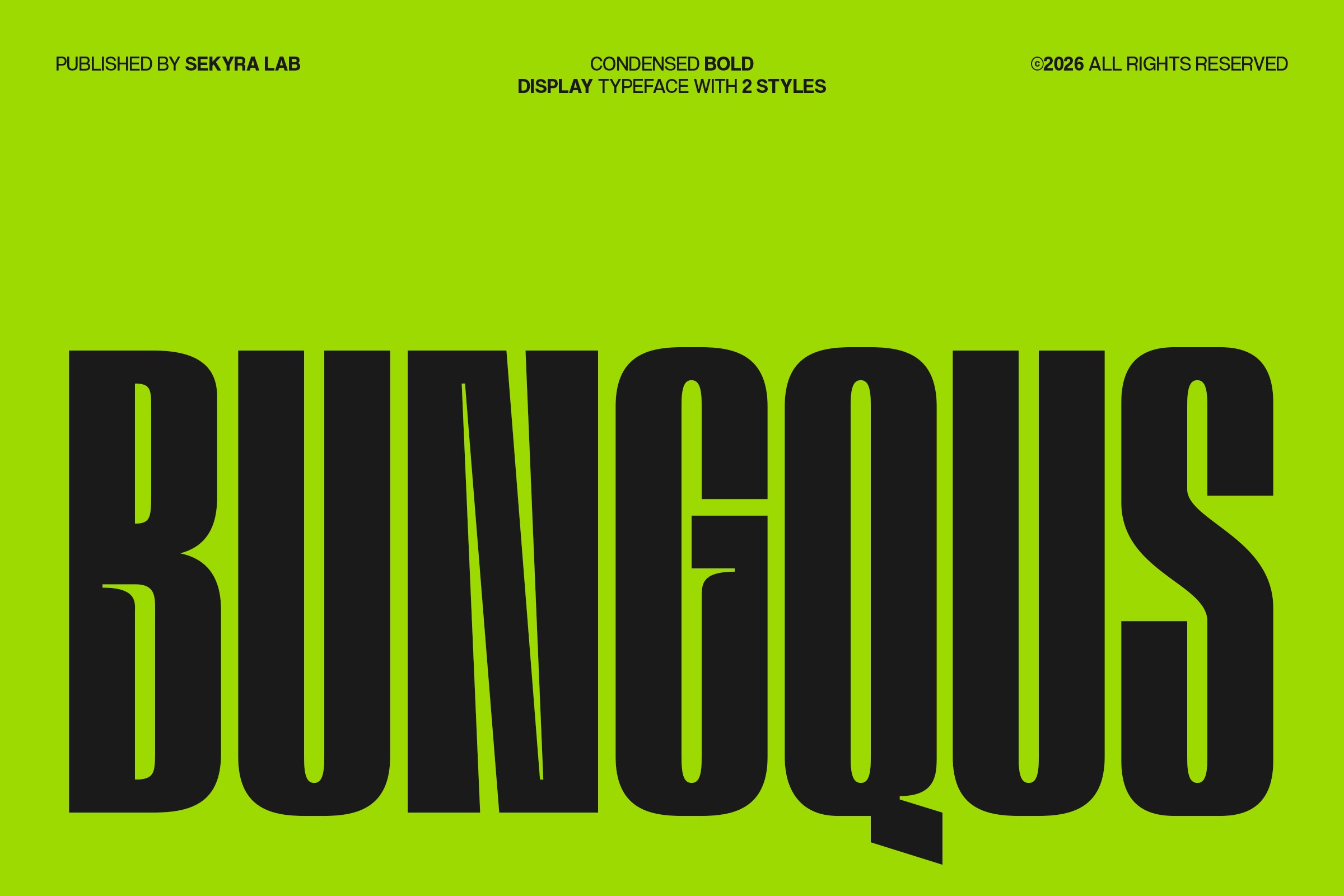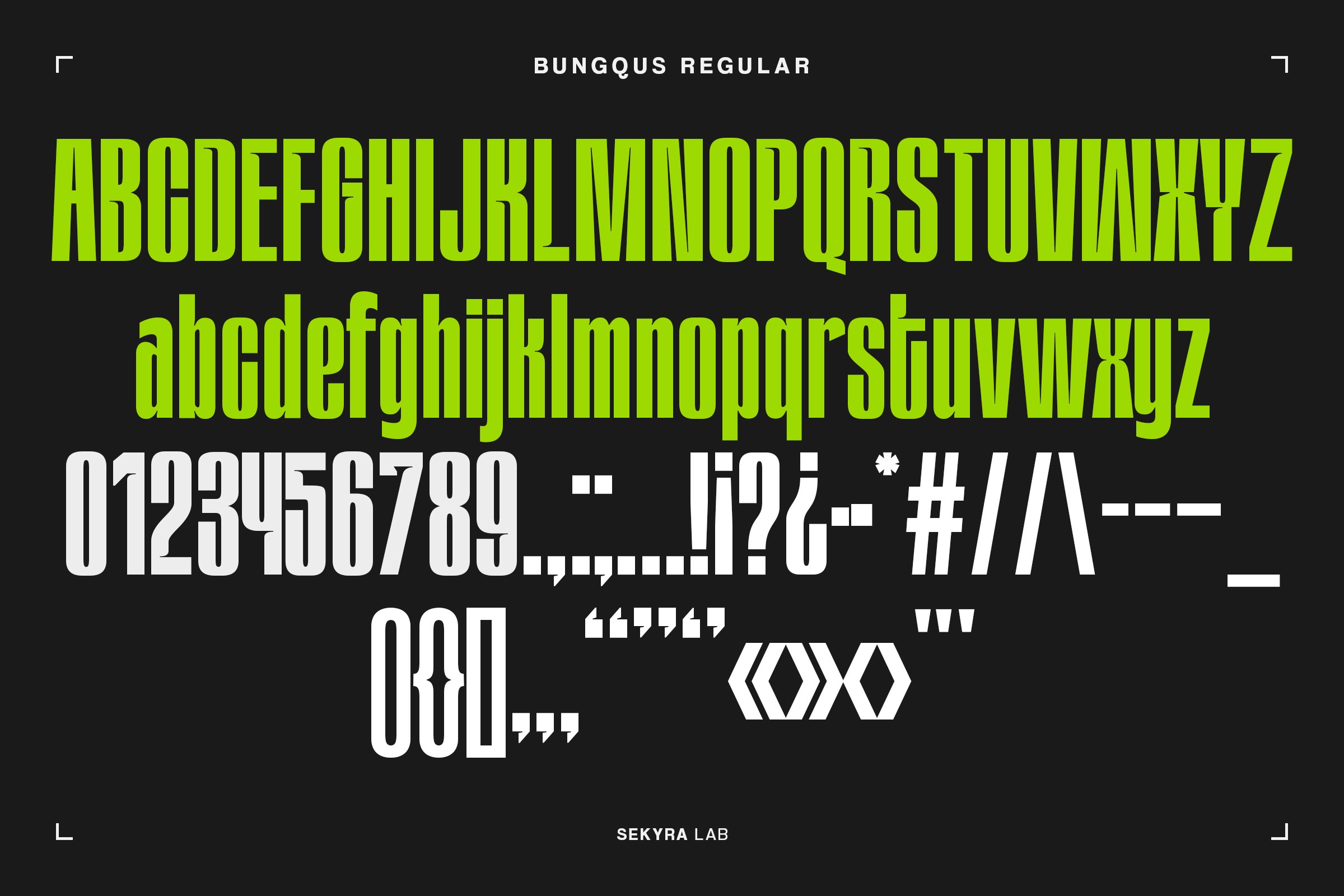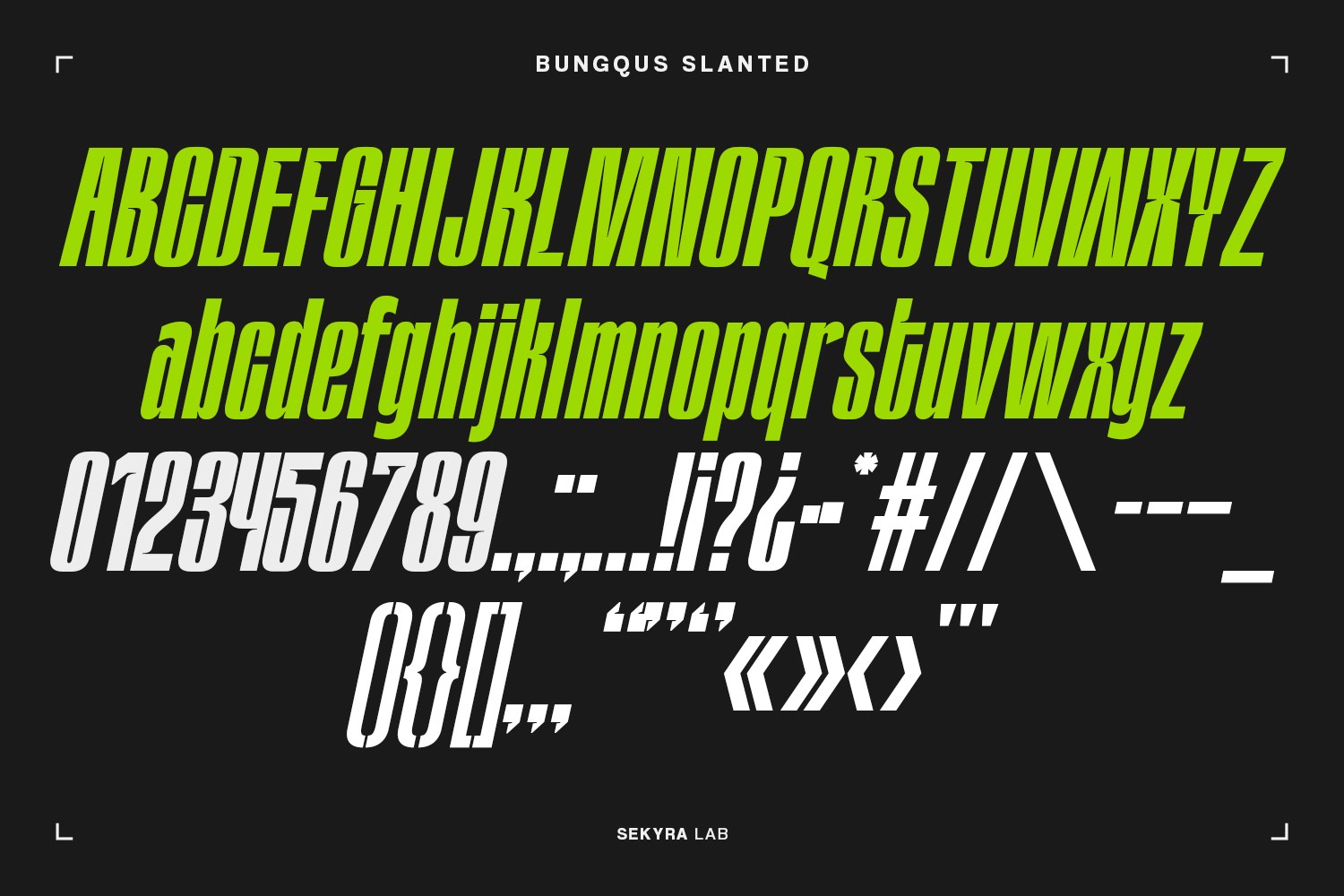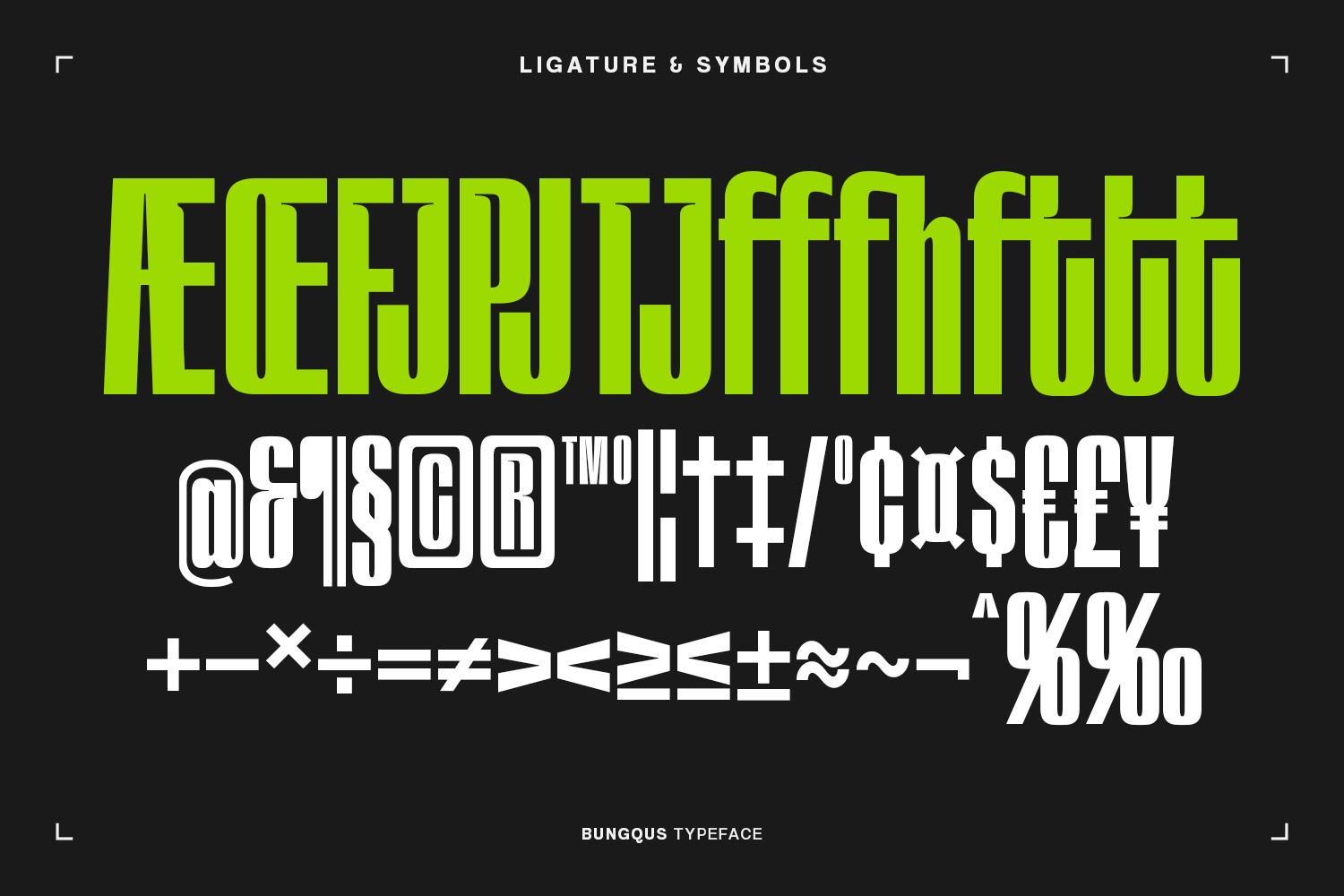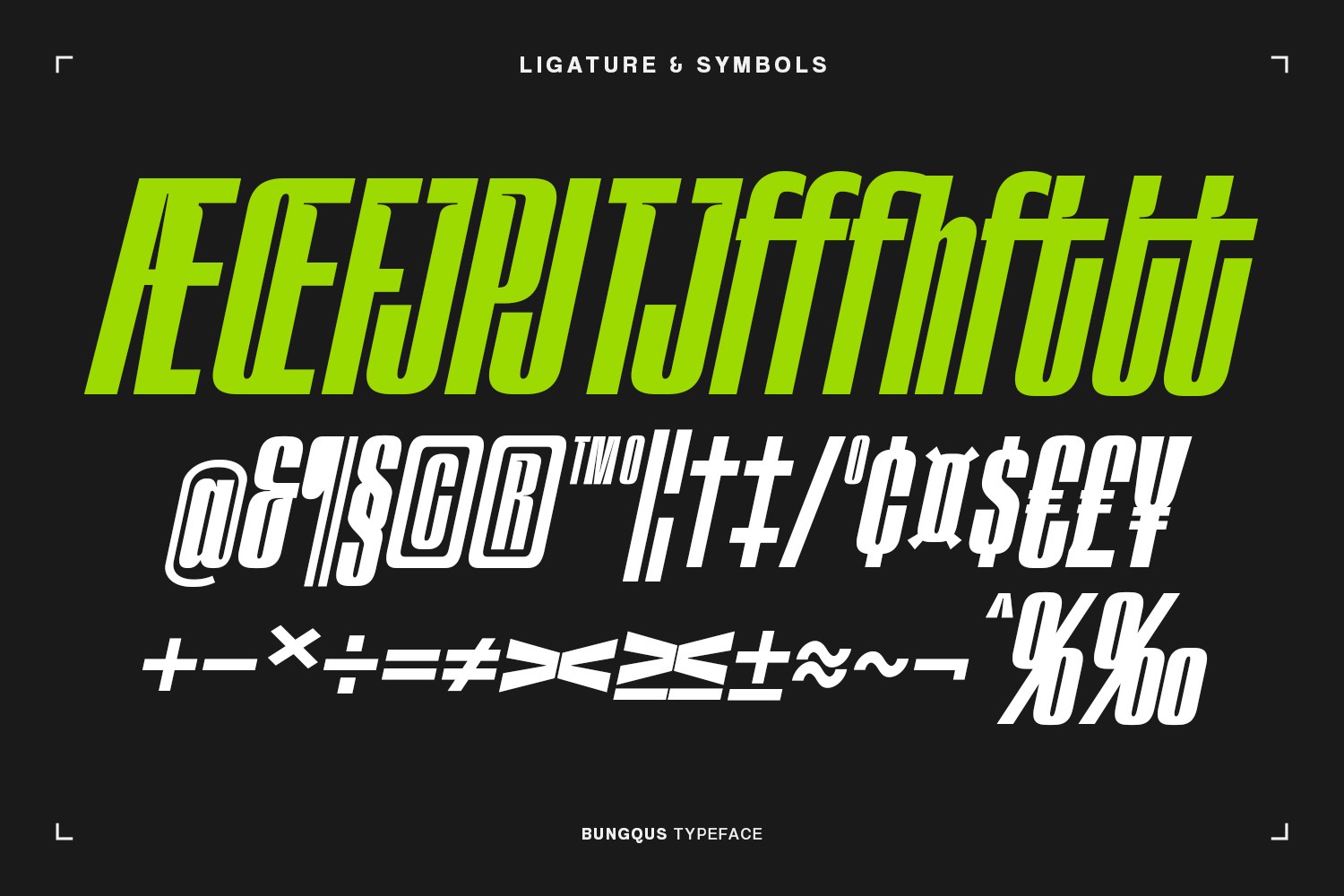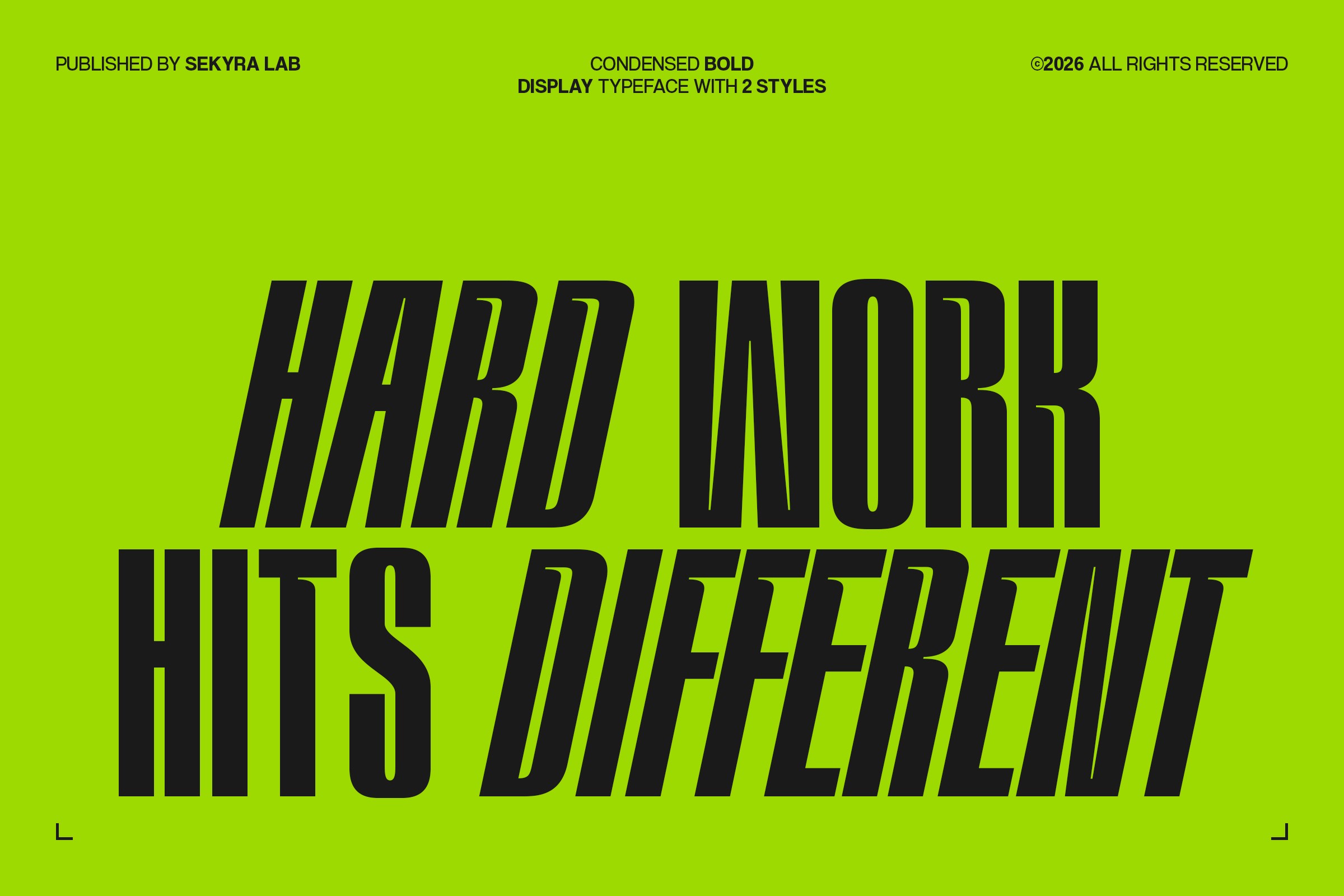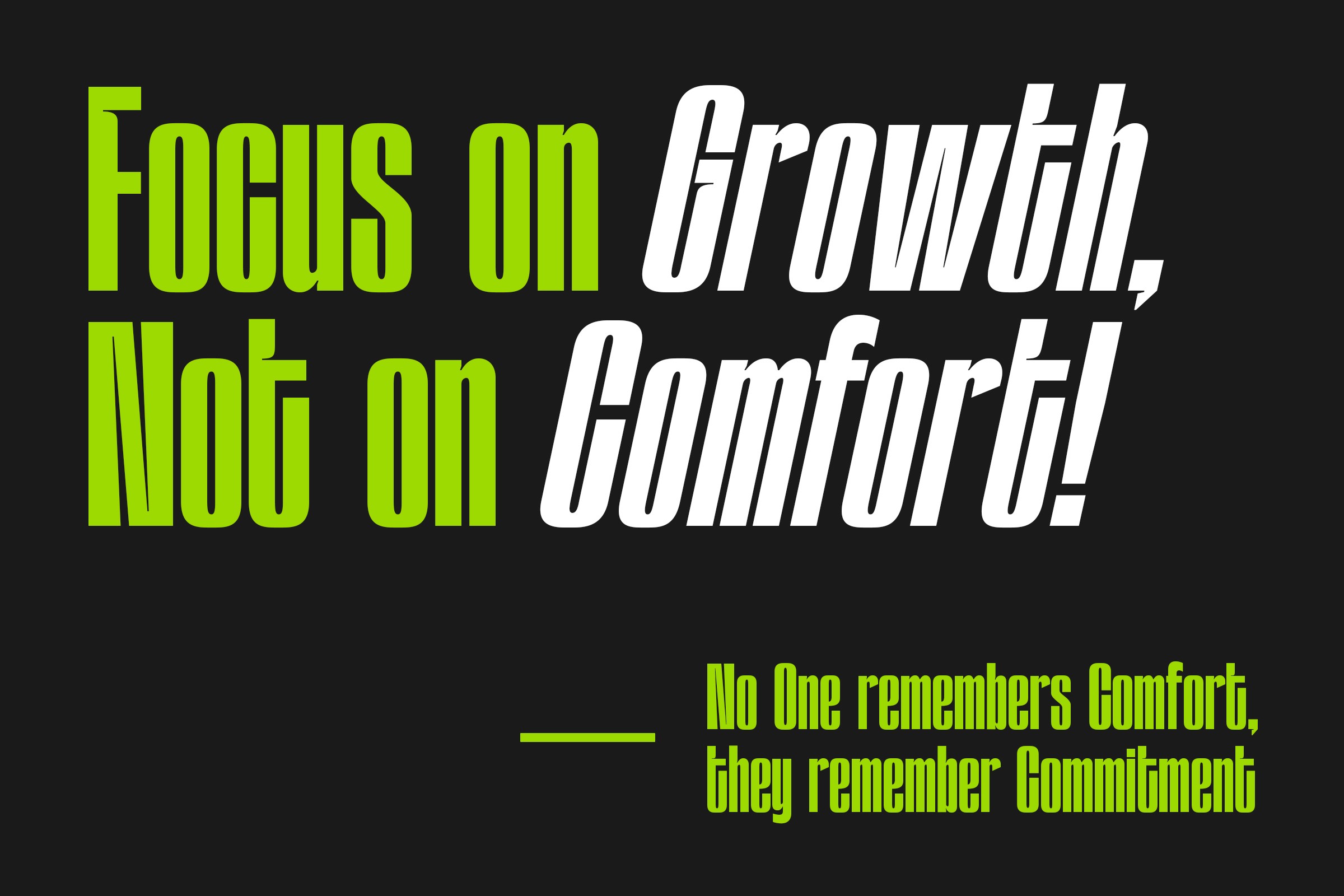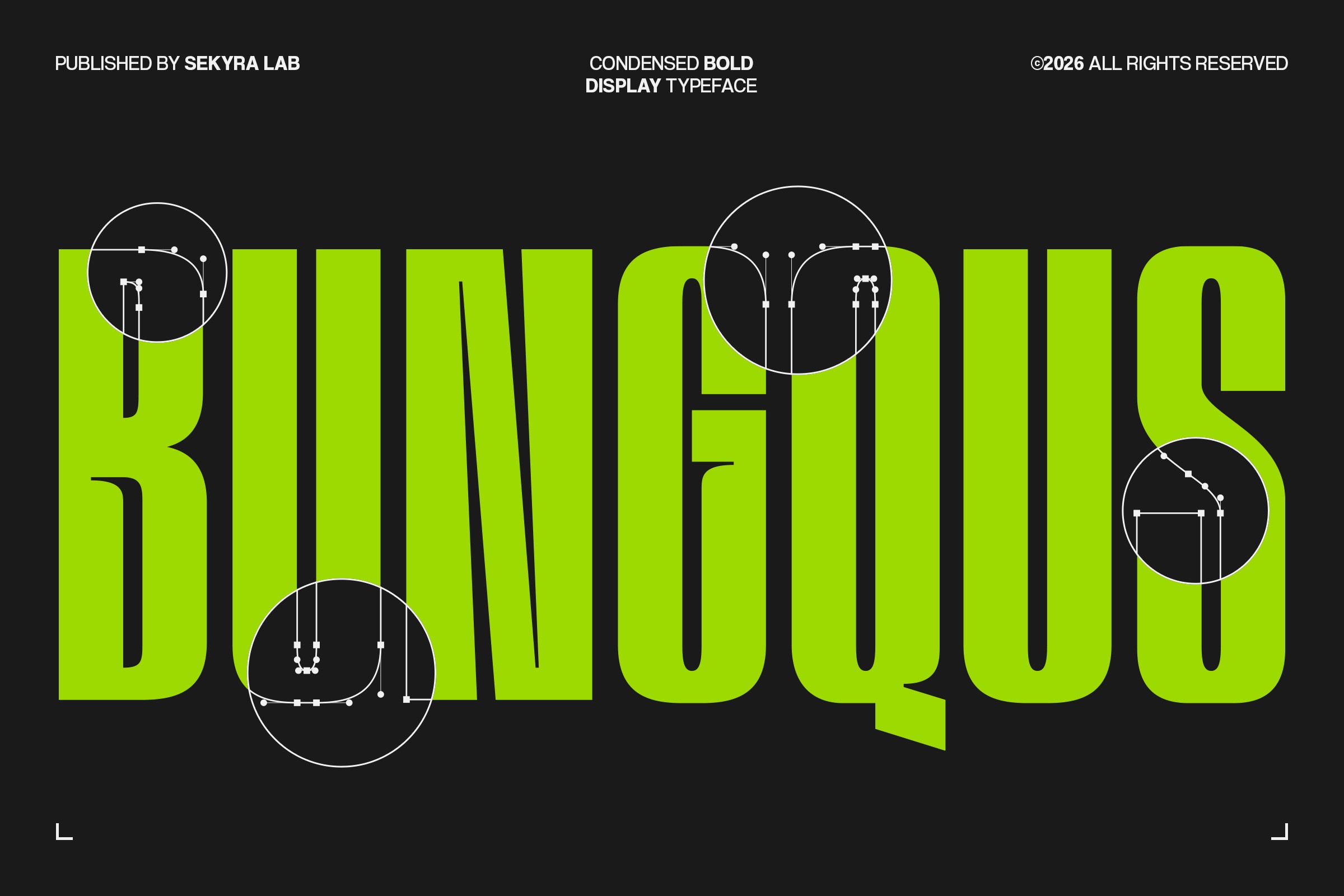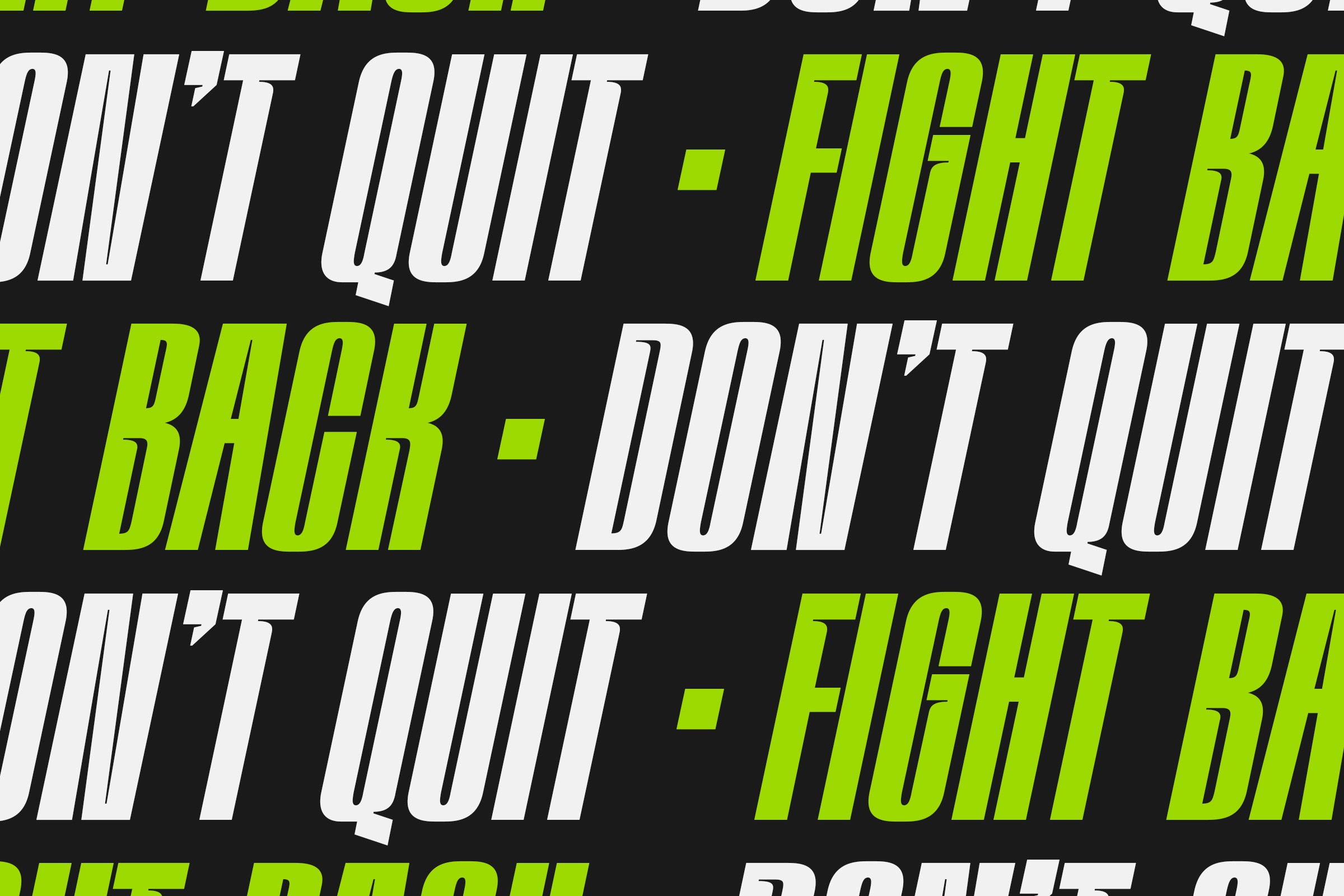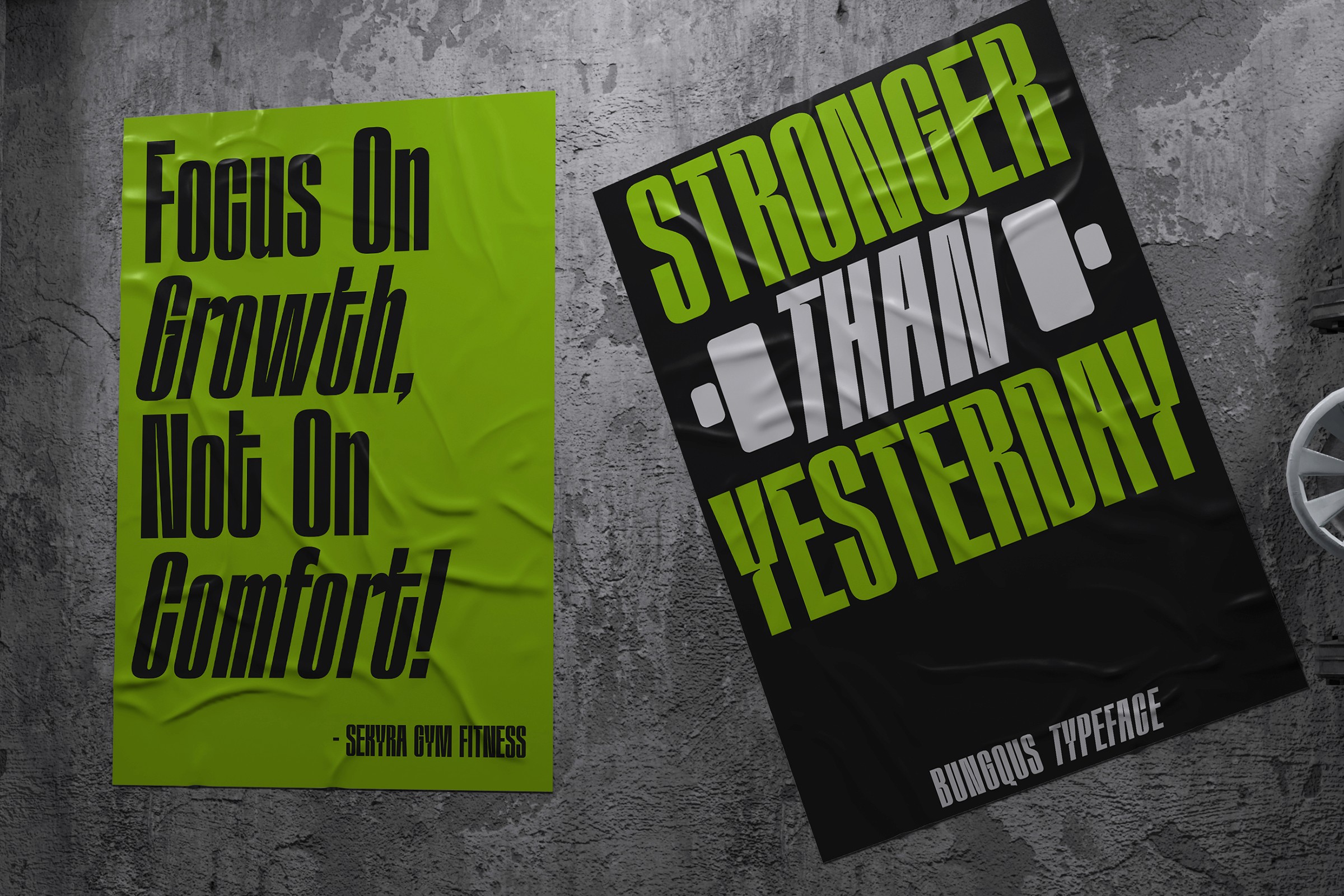
Bungqus Font
Type
Condensed Display
Styles
2 Styles
Release
2026
Bungqus is a bold condensed display typeface designed to maximize impact in tight spaces. With tall proportions and confident strokes, it creates a strong vertical rhythm that naturally draws attention.
Key Features
Condensed and space-efficient design
Strong vertical emphasis
Sharp and modern character
High readability despite tight spacing
Multilingual support
Perfect For
Posters & headlines
Branding in limited space
Editorial layouts
Bold typography compositions
Styles
Regular
Slanted